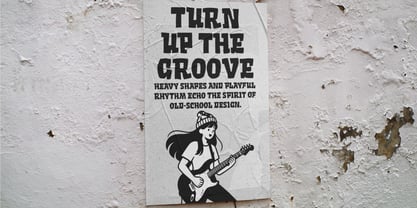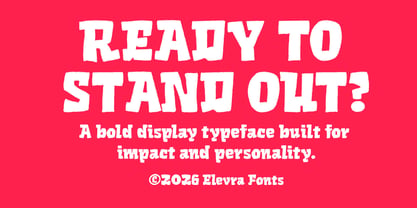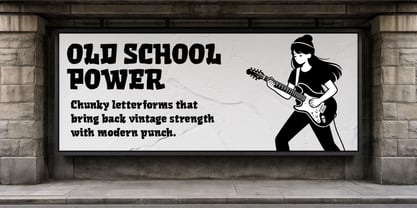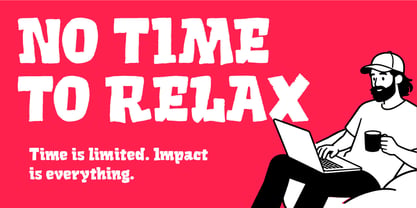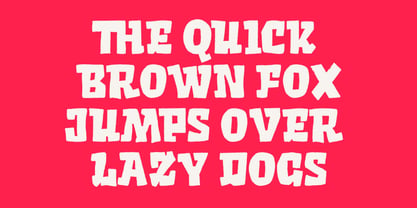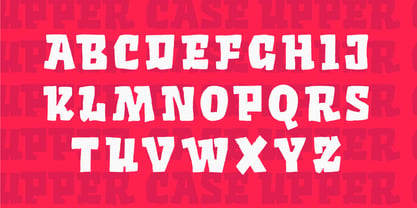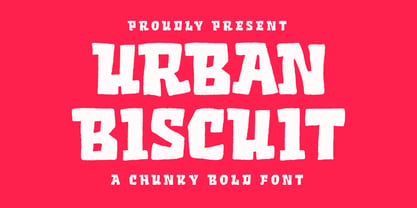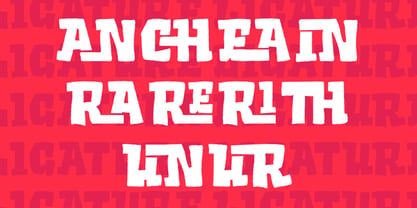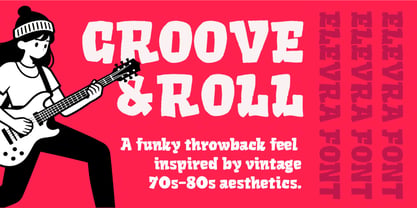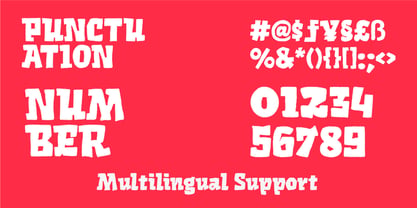
Urban Biscuit
by Elevra
The Urban Biscuit Font Family was designed by Wirandi Limansyah Zendrato and published by Elevra. Urban Biscuit contains 1 styles. More about this family
Urban Biscuit is a chunky bold display font built with strong structure and raw character. Featuring thick strokes, slightly rough edges, and compact proportions, this typeface delivers a powerful and confident visual impact. Designed to stand out in large sizes, Urban Biscuit works perfectly for headlines, posters, street-style branding, packaging, merchandise, and social media graphics. Its bold presence and slightly rugged texture give it an urban and energetic personality while maintaining readability. This font is ideal for designers who want a strong, attention-grabbing typeface that feels modern, expressive, and impactful. Whether used for branding projects or bold promotional designs, Urban Biscuit ensures your typography commands attention. If you're looking for a chunky bold font with attitude and versatility, Urban Biscuit is a solid choice.